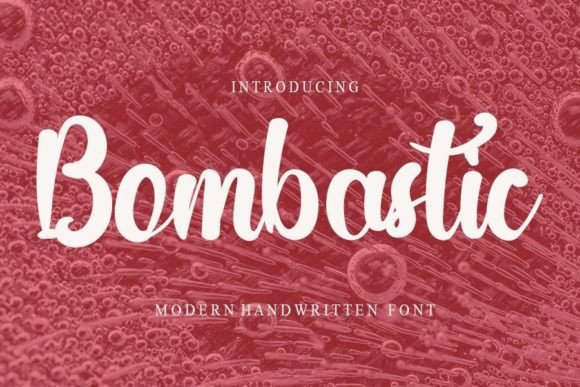
The Ultimate Guide to Bombastic Font: A Designer’s New Best Friend
An Honest Review of Bombastic Font
- ✨ Clean and simple style: Bombastic Font boasts a neat and straightforward design that makes it perfect for a wide range of projects.
- ✅ Friendly and approachable vibe: This font exudes a warm and welcoming personality that’s sure to resonate with your audience.
- 💡 Versatility: Whether you’re working on a logo, brochure, or social media graphics, Bombastic Font adapts seamlessly to any design.
The Story Behind Bombastic Font
While the origins of Bombastic Font might be shrouded in mystery, it’s easy to imagine a designer with a passion for friendly, approachable typography creating this gem. Perhaps they wanted to craft a font that would make designs feel more approachable and engaging. Whatever the inspiration, Bombastic Font has undoubtedly become a treasured find for many designers.
Q: What makes Bombastic Font so versatile?
A: Its clean and simple design allows it to adapt to various projects and styles, making it a go-to font for many designers.
Q: Does Bombastic Font support OpenType features?
A: Yes, Bombastic Font comes with a range of OpenType features, including stylistic alternates and glyphs, which can enhance your designs.